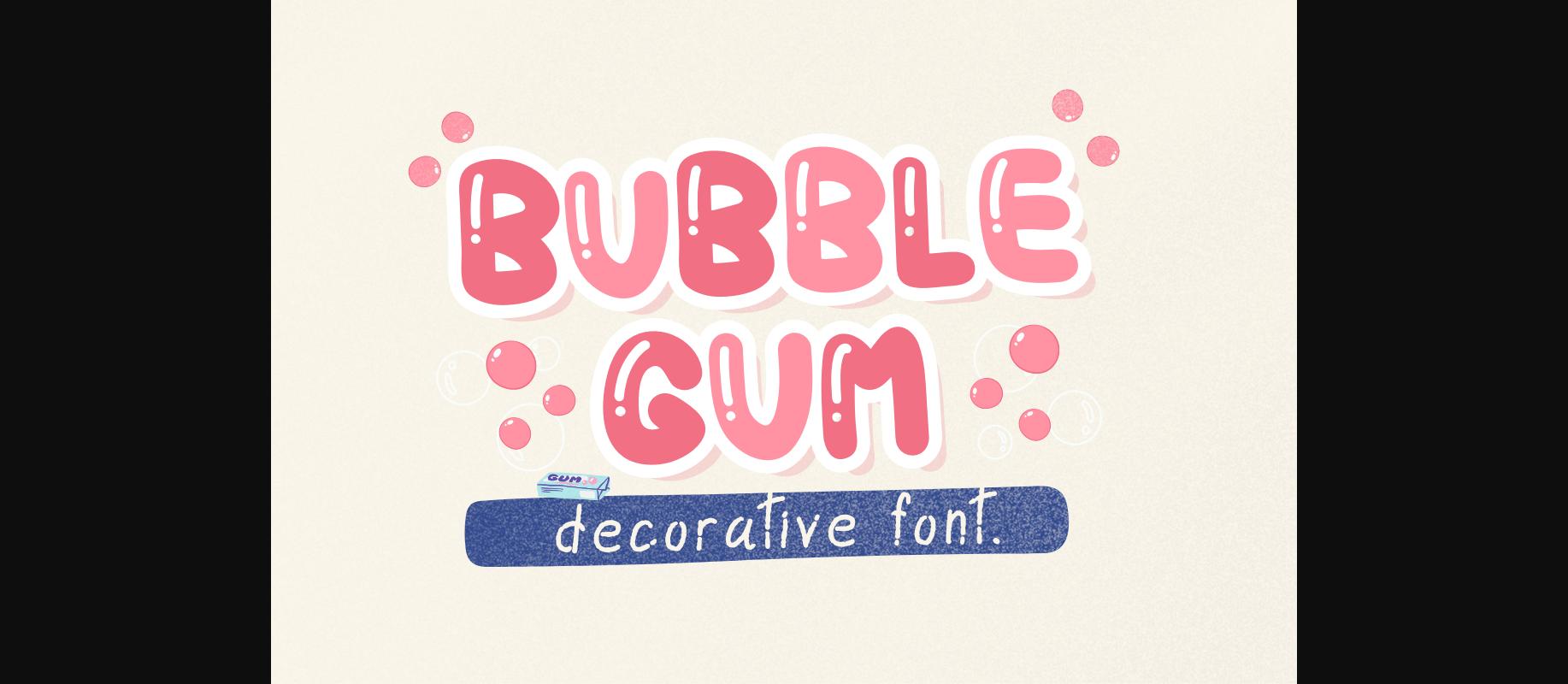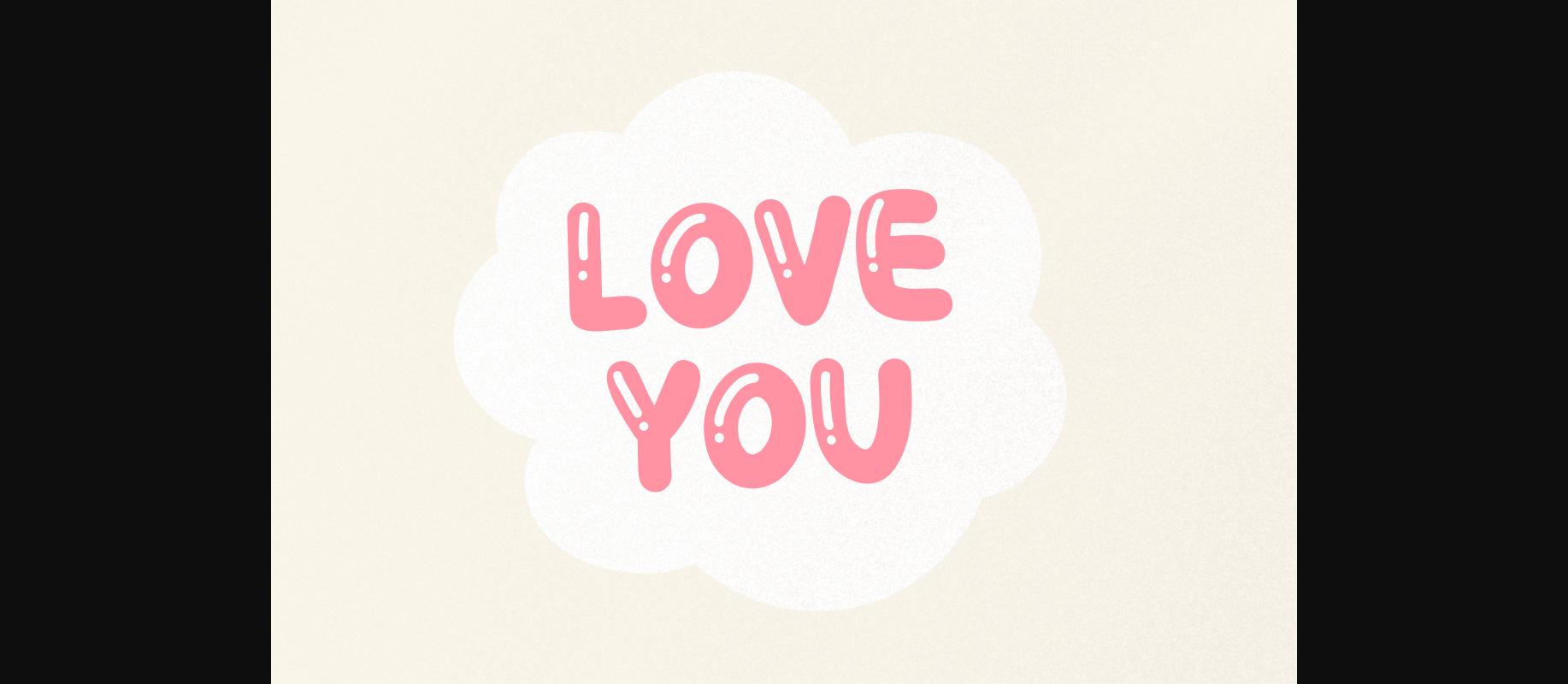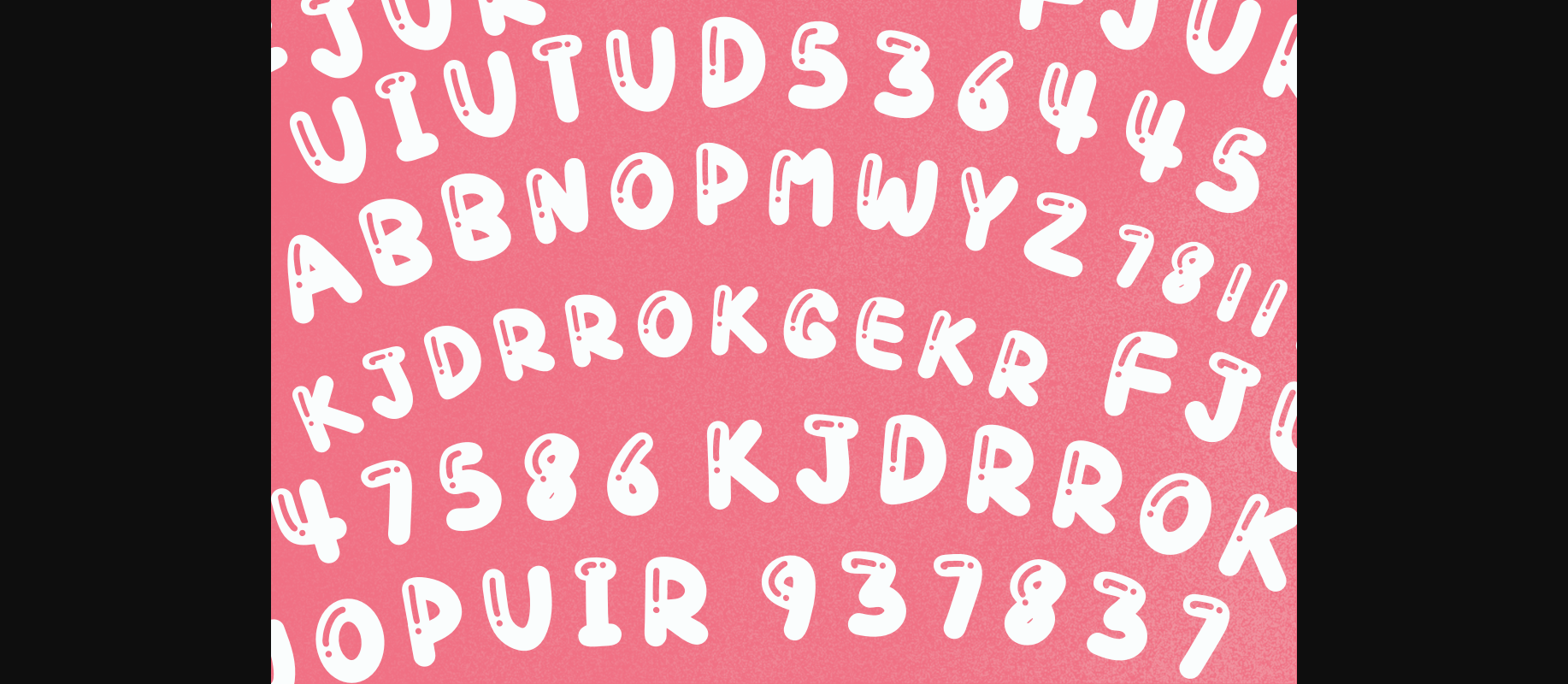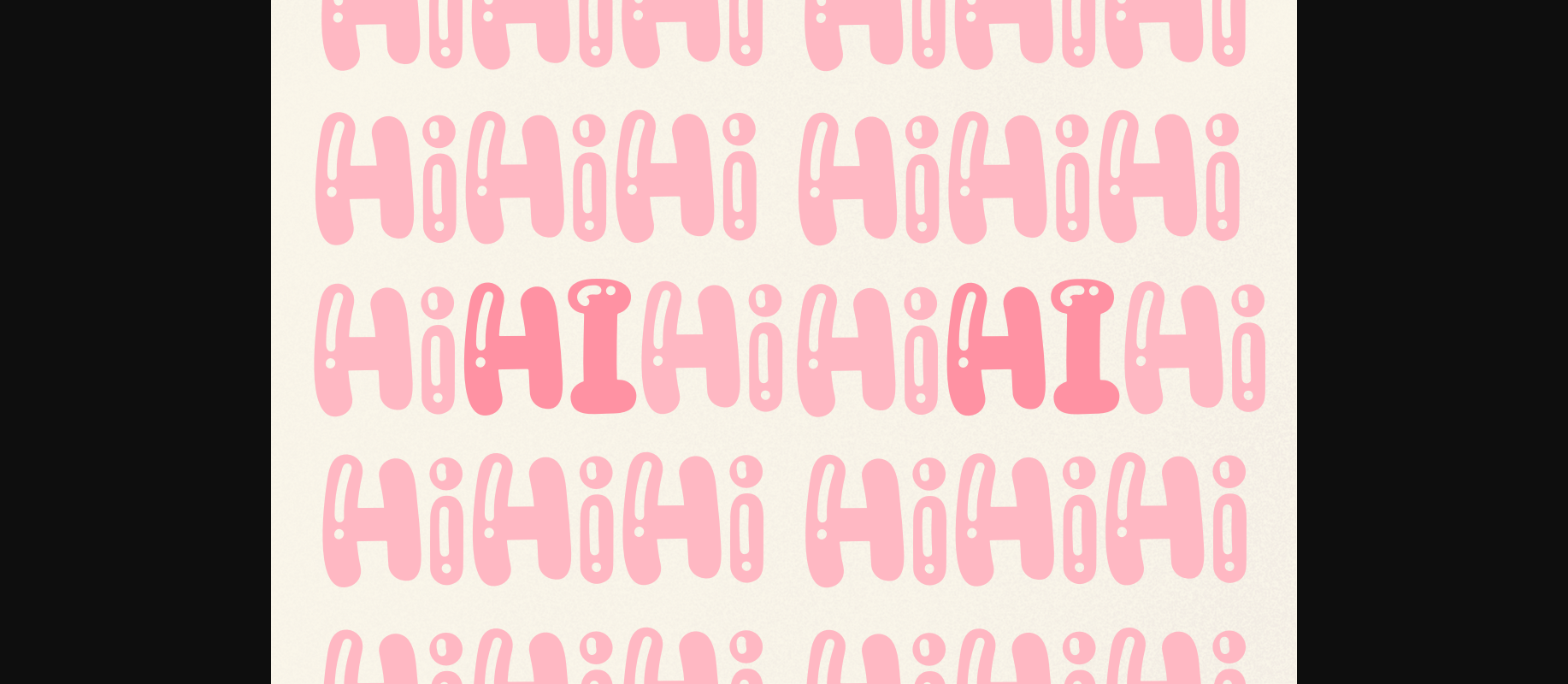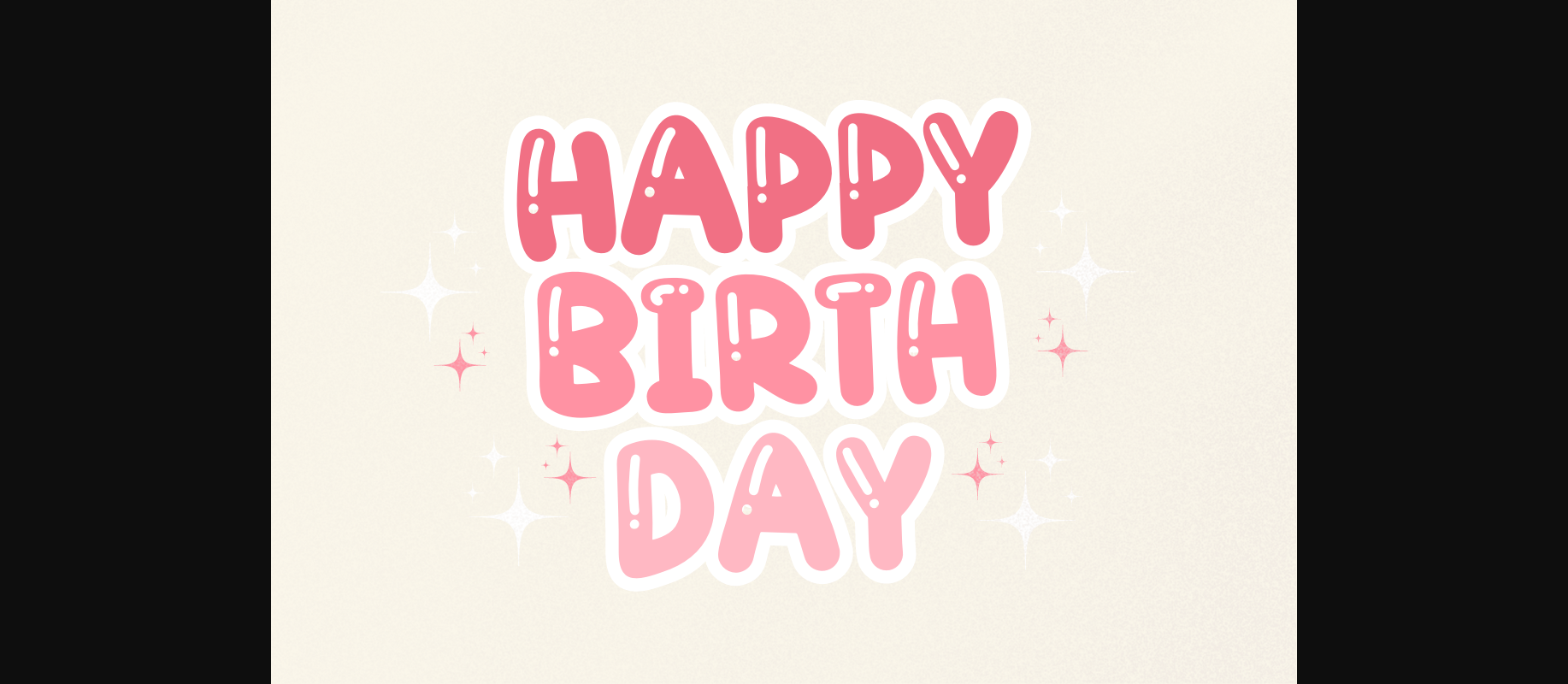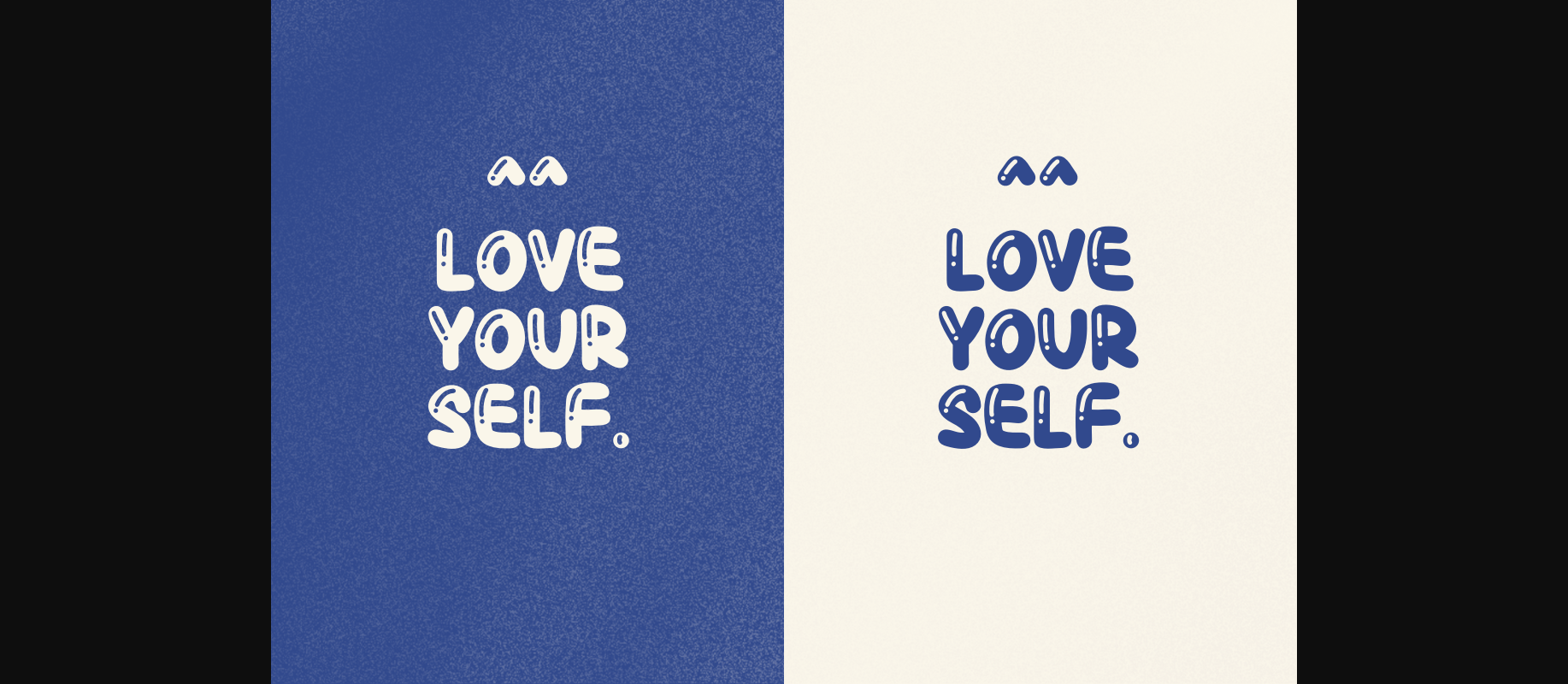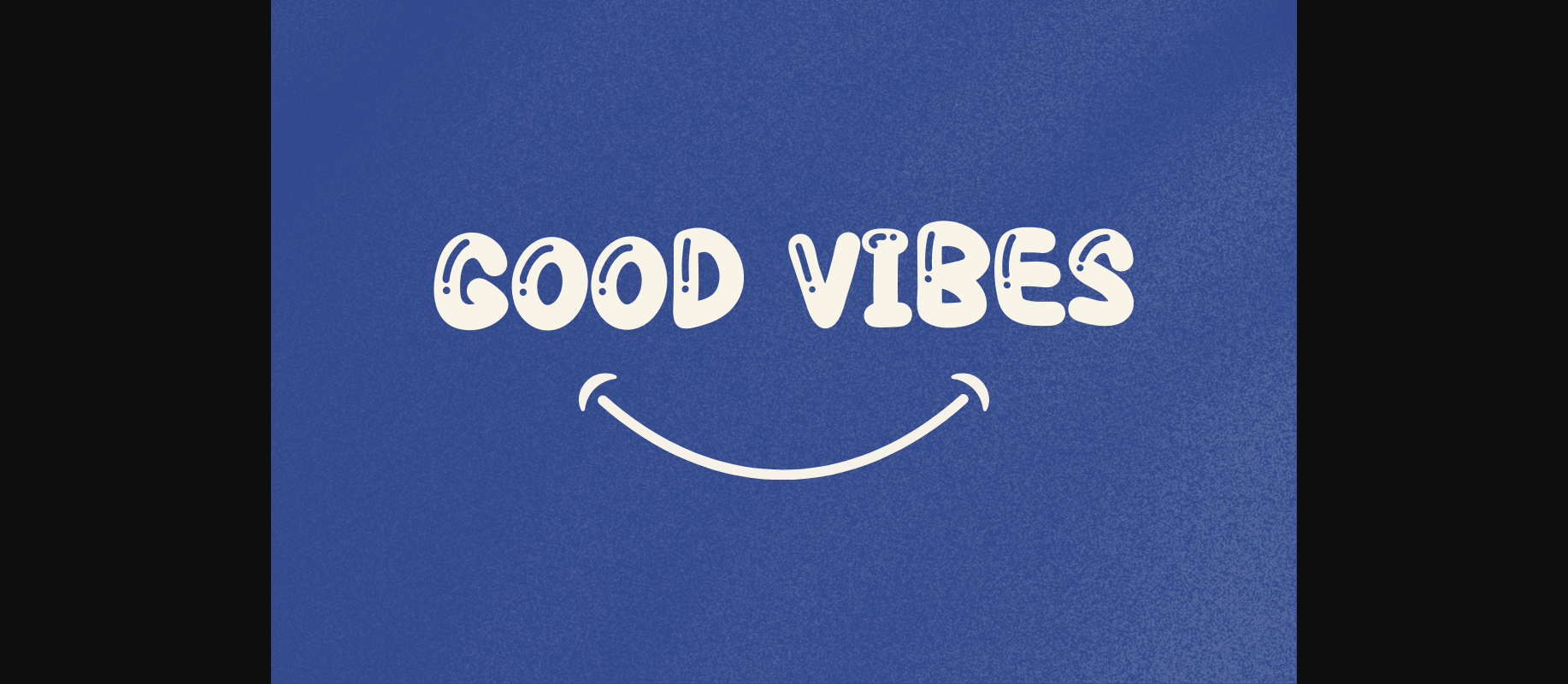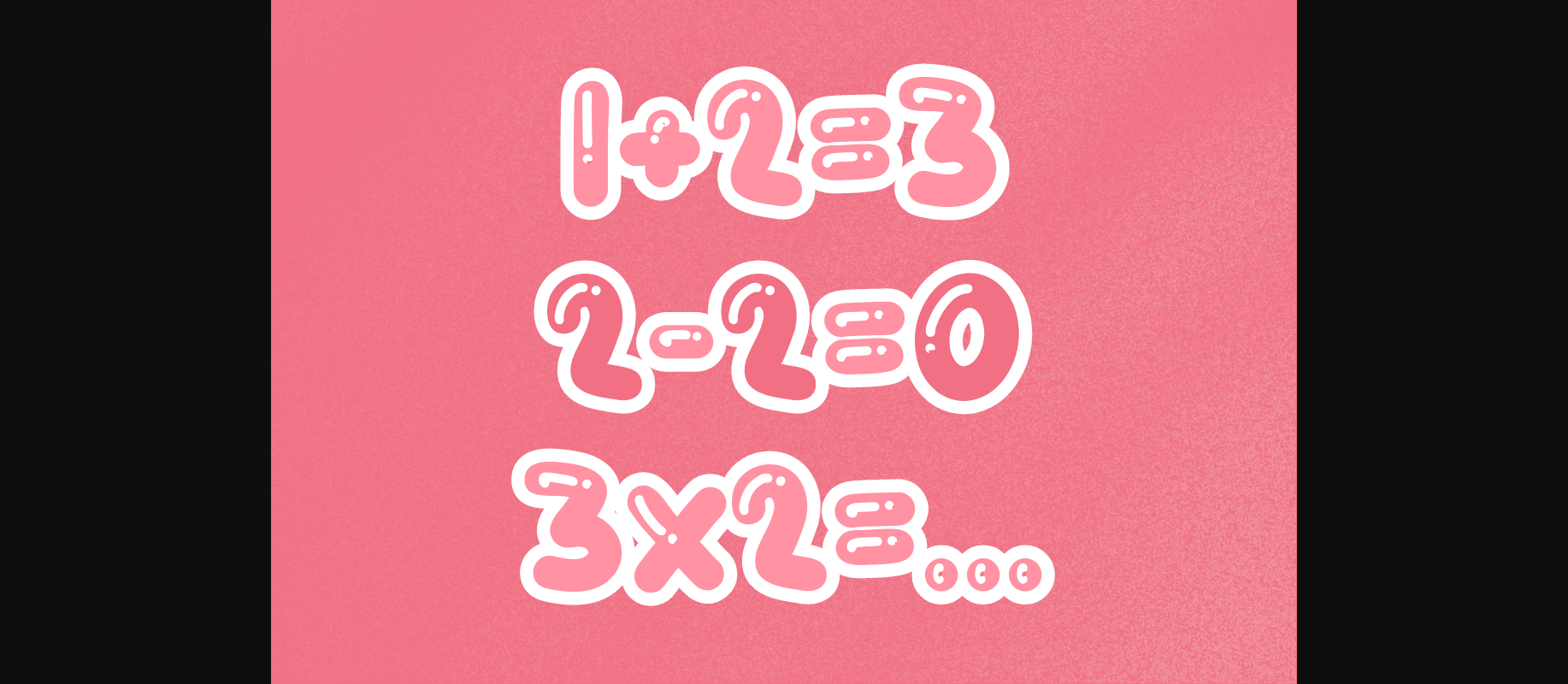
Bubble Gum is a cute and quirky decorative font. It will add an incredibly joyful touch to your designs. Add this beautiful display font to each of your creative ideas and notice how it makes them stand out!